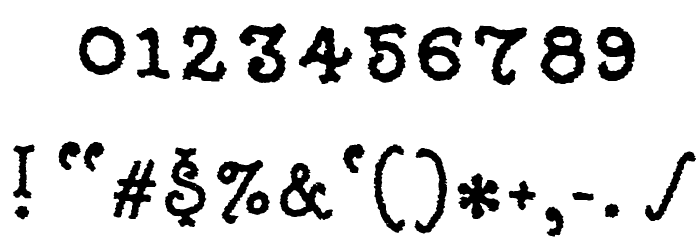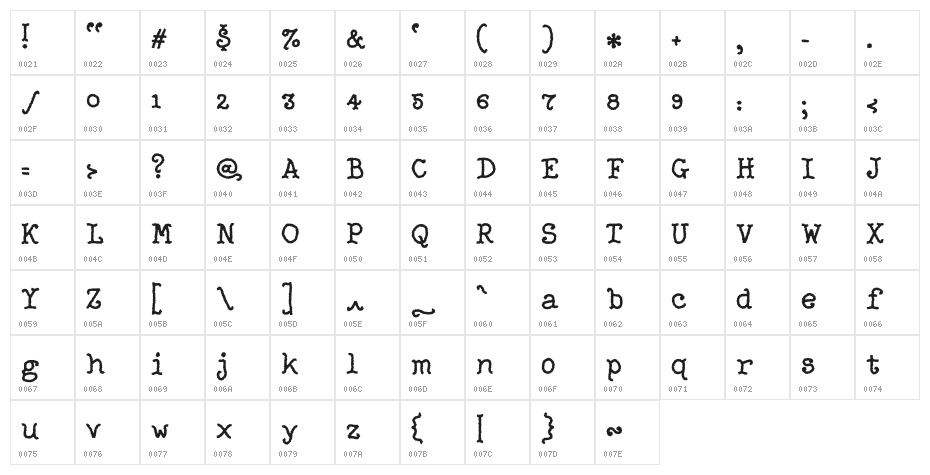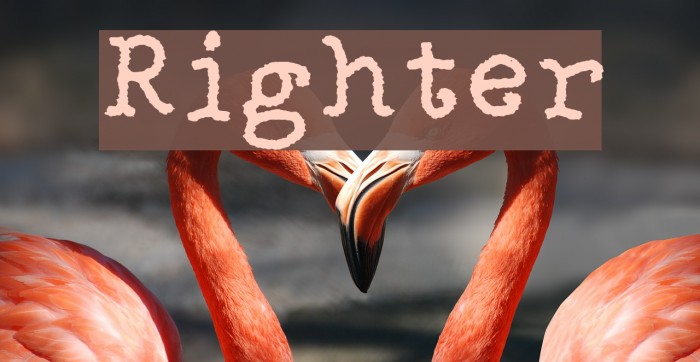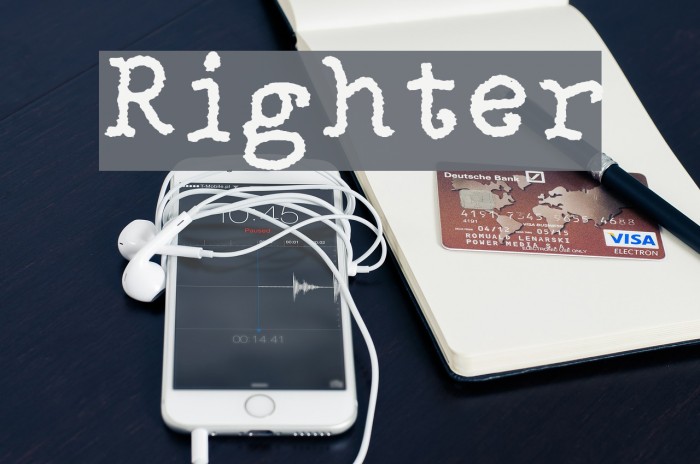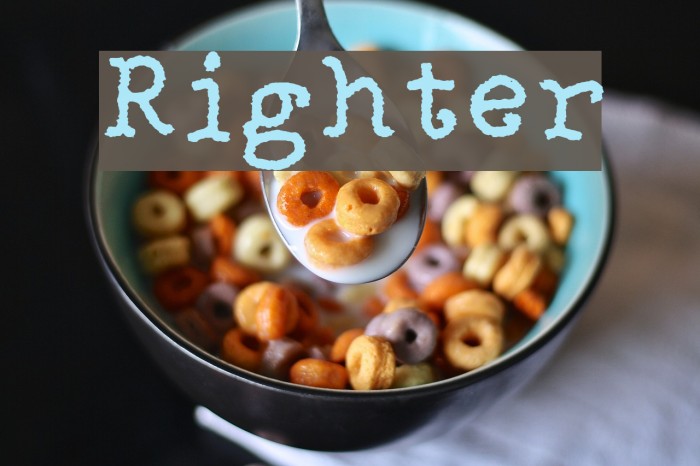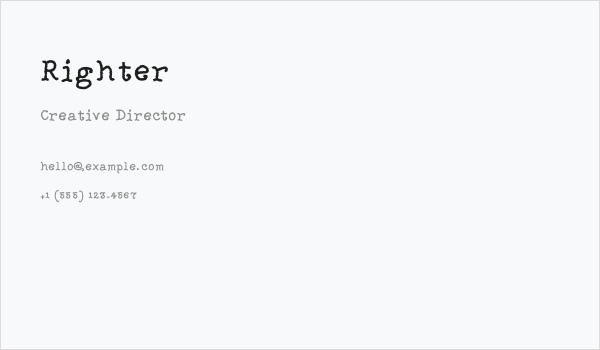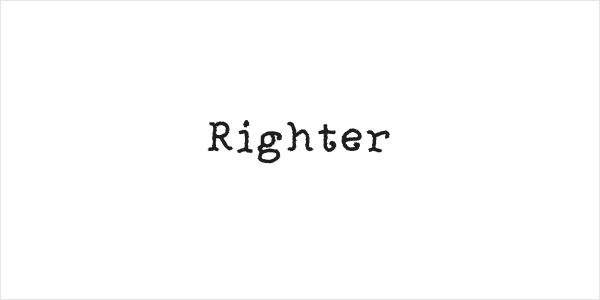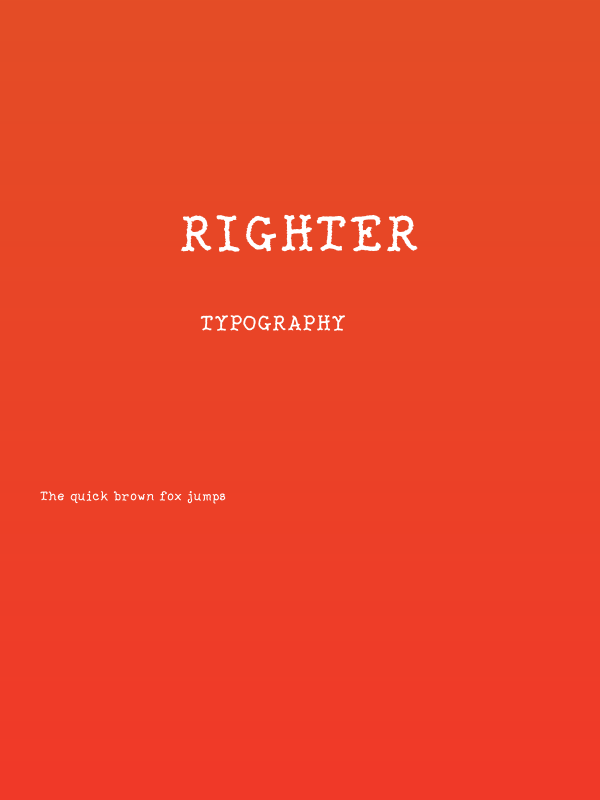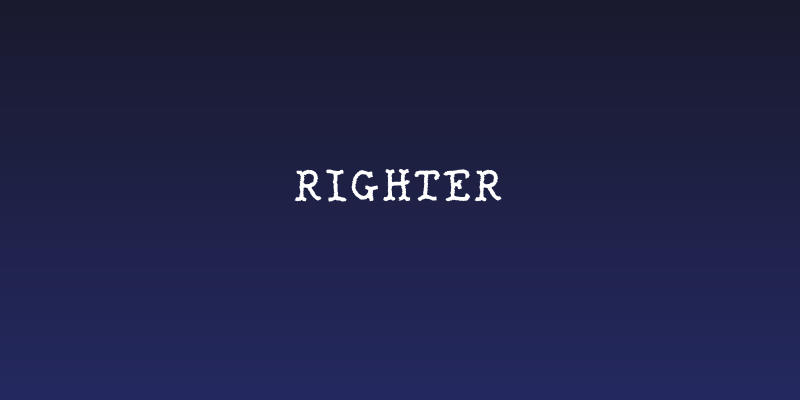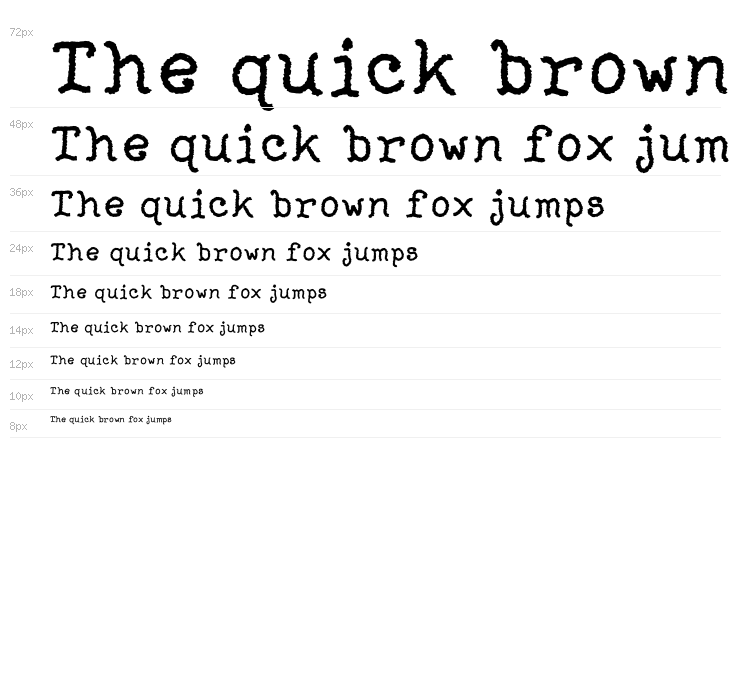
Righter Font
Righter Description
This font exhibits a distinct typewriter style with a vintage, textured appearance. The characters have a slightly irregular, hand-crafted look, giving them a unique charm. The uppercase and lowercase letters maintain a consistent style, with rounded edges and a slightly distressed texture that adds to the retro feel. The numerals and special characters follow the same design principles, ensuring uniformity across all glyphs. This font's aesthetic is reminiscent of old typewriter print, making it ideal for projects that require a touch of nostalgia or a handcrafted feel.
| Proposed Projects | Ideal for vintage-themed designs, retro posters, typewriter-style documents, and creative projects that require a handcrafted look. |